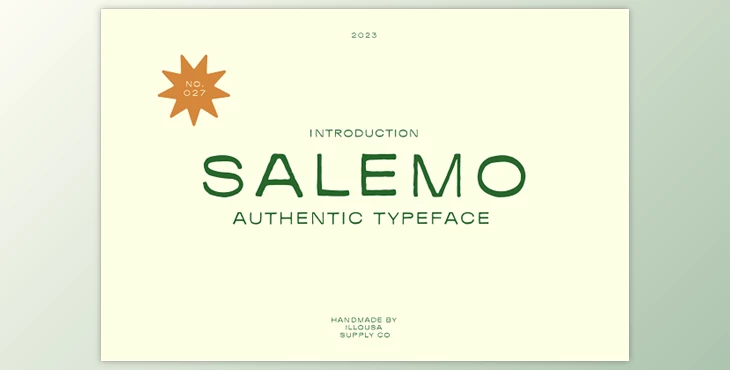
Salemo Typeface: Salemo, a font inspired by vintage prints, takes the essence of Afrora but adds a more comprehensive and classic touch, making it ideal for diverse applications. Highly recommended for branding projects, website fonts, poster designs, magazine layouts, and book typography, Salemo exudes a minimalist style. It encompasses uppercase, lowercase, and select punctuation for various creative possibilities.
Crafted by hand, Salemo brings your projects a unique and timeless aesthetic.